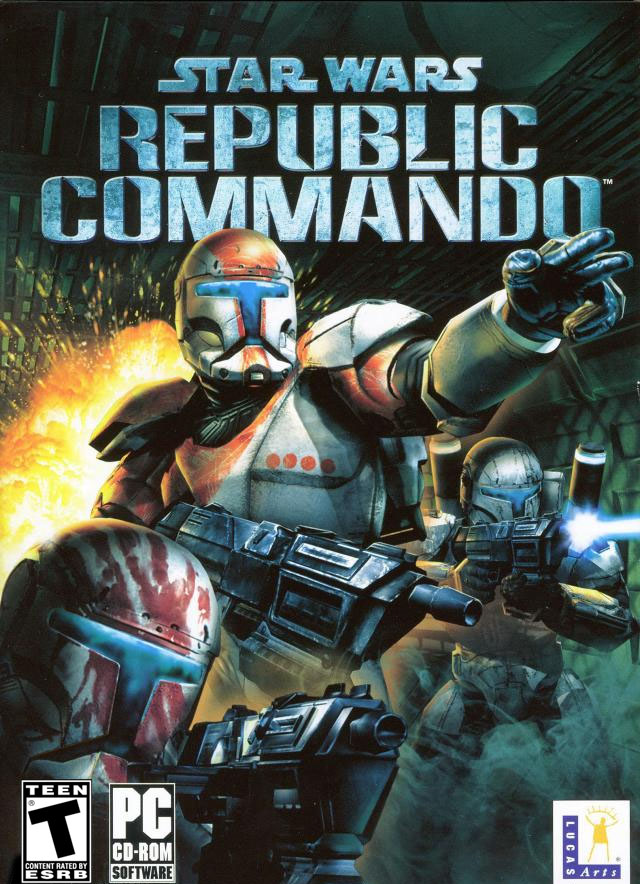
Star Wars Republic Commando Font
Fonts in UseStar Wars: Republic Commando is a first-person shooter video game released in 2005, where players assume the role of a clone commando and lead their squad through various missions during the Clone Wars.